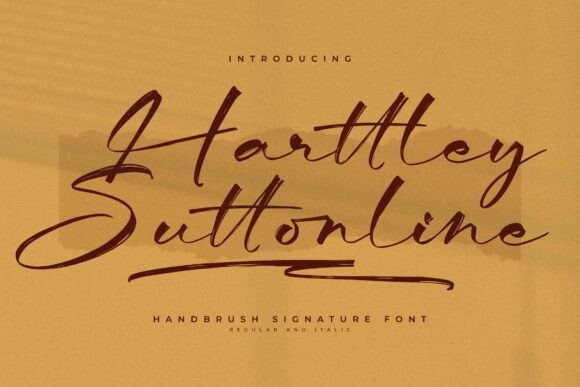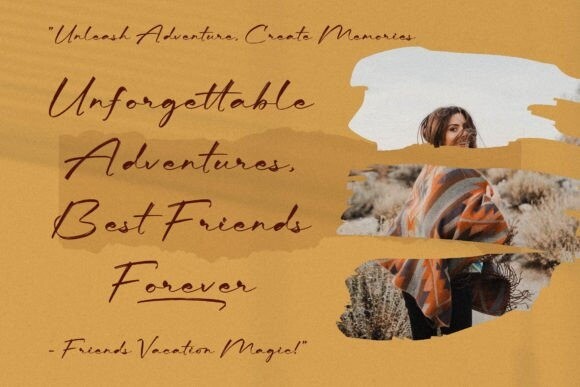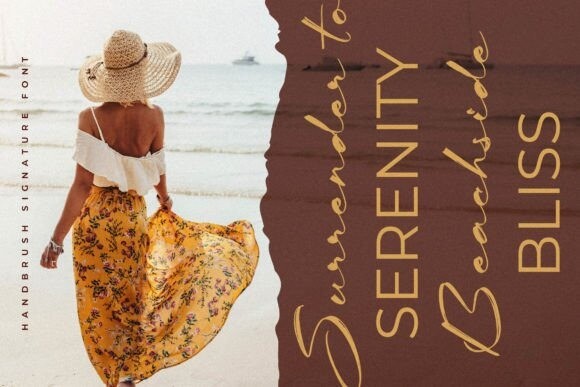
Harttley Suttonline Font
Harttley Suttonline Font – Handbrush Signature Font , from Glorytype Studio, suitable for any projects such as: logos, branding projects, homeware designs, product packaging, mugs, quotes, posters, shopping bags, t-shirts, book covers, name card, invitation cards, greeting cards, label, photography, watermark, special events, and all your other lovely projects that need a beautiful script taste.